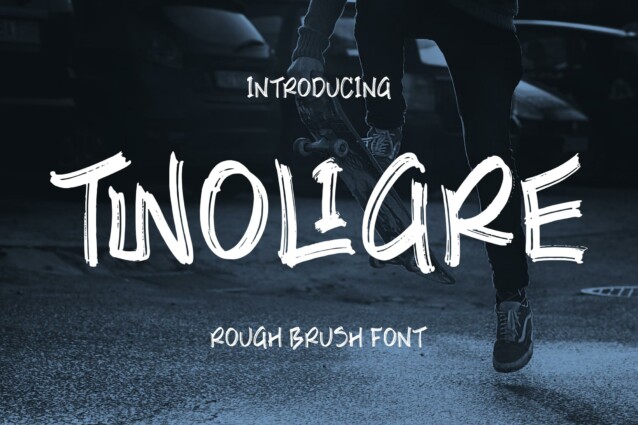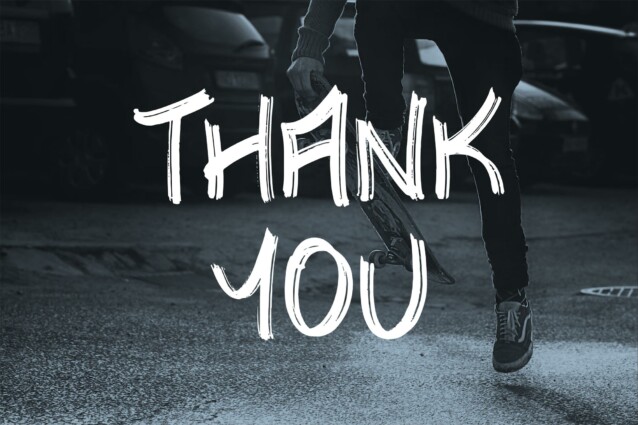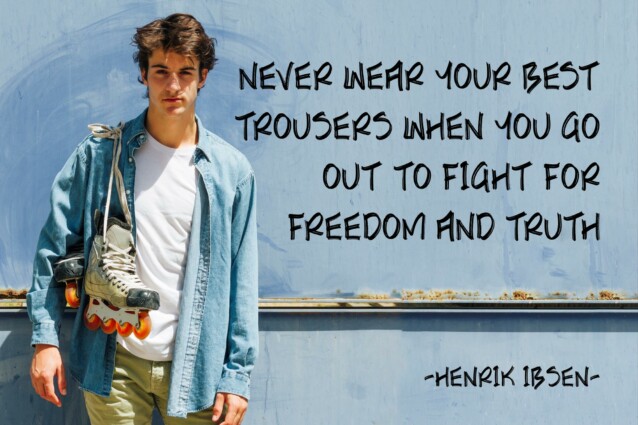
Twoligre Font
Twoligre Font is a Rough Brush Font, suitable for any projects such as: logos, branding projects, homeware designs, product packaging, mugs, quotes, posters, shopping bags, t-shirts, book covers, name card, invitation cards, greeting cards, label, photography, watermark, special events, and all your other lovely projects that need a beautiful script taste.